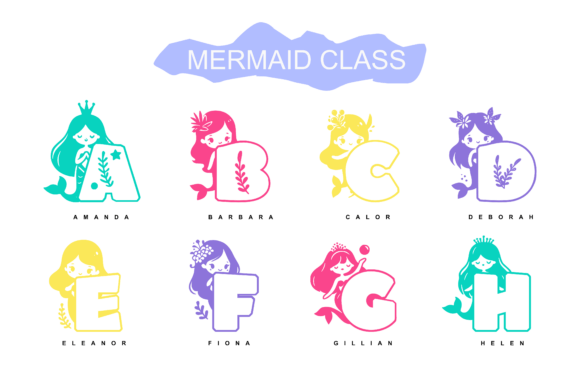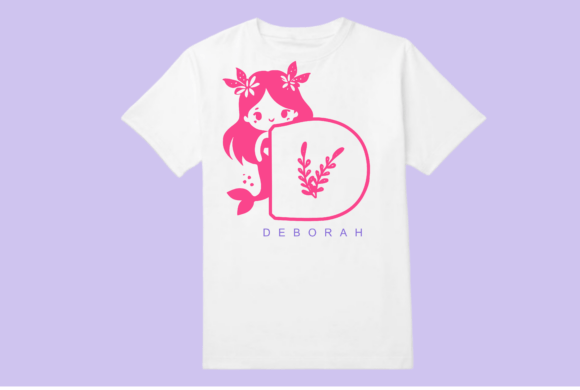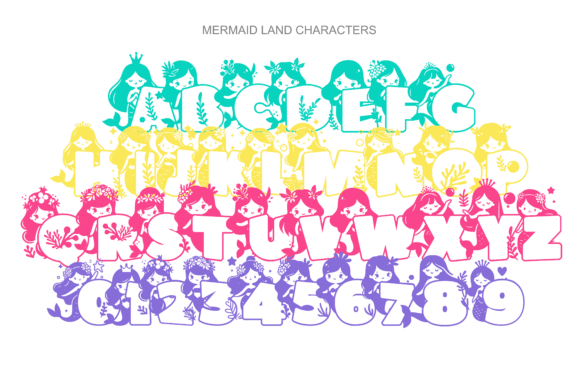
Introduction to Mermaid Land Font
Dive into the mesmerizing world of whimsical charm with Mermaid Land, a uniquely captivating display font.
This standout typeface offers a magical touch to your artistic endeavors, enveloping your designs with an enchanting joy Mermaid Land goes beyond a mere font; it presents a dynamic fusion of intriguing characteristics, a bewitching synchronization of lines and swirls designed to drench your design sphere in unforgettable allure.
Key Features of Mermaid Land Font
Why Choose Mermaid Land Font?